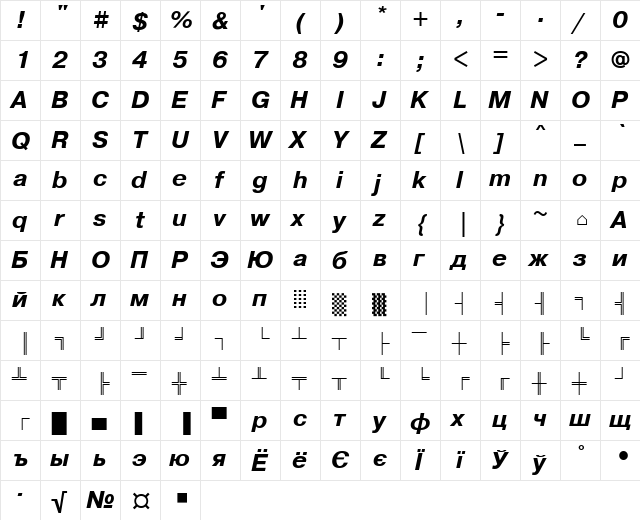
PragmaticaDOSCTT BoldItalic Font Preview
Design Context for PragmaticaDOSCTT Typeface
PragmaticaDOSCTT is a composed and adaptable typeface that performs quietly and consistently across a wide range of design contexts. Its italic angle brings a sense of urgency and motion to the letterforms. The heavy weight commands attention and anchors typographic hierarchies.